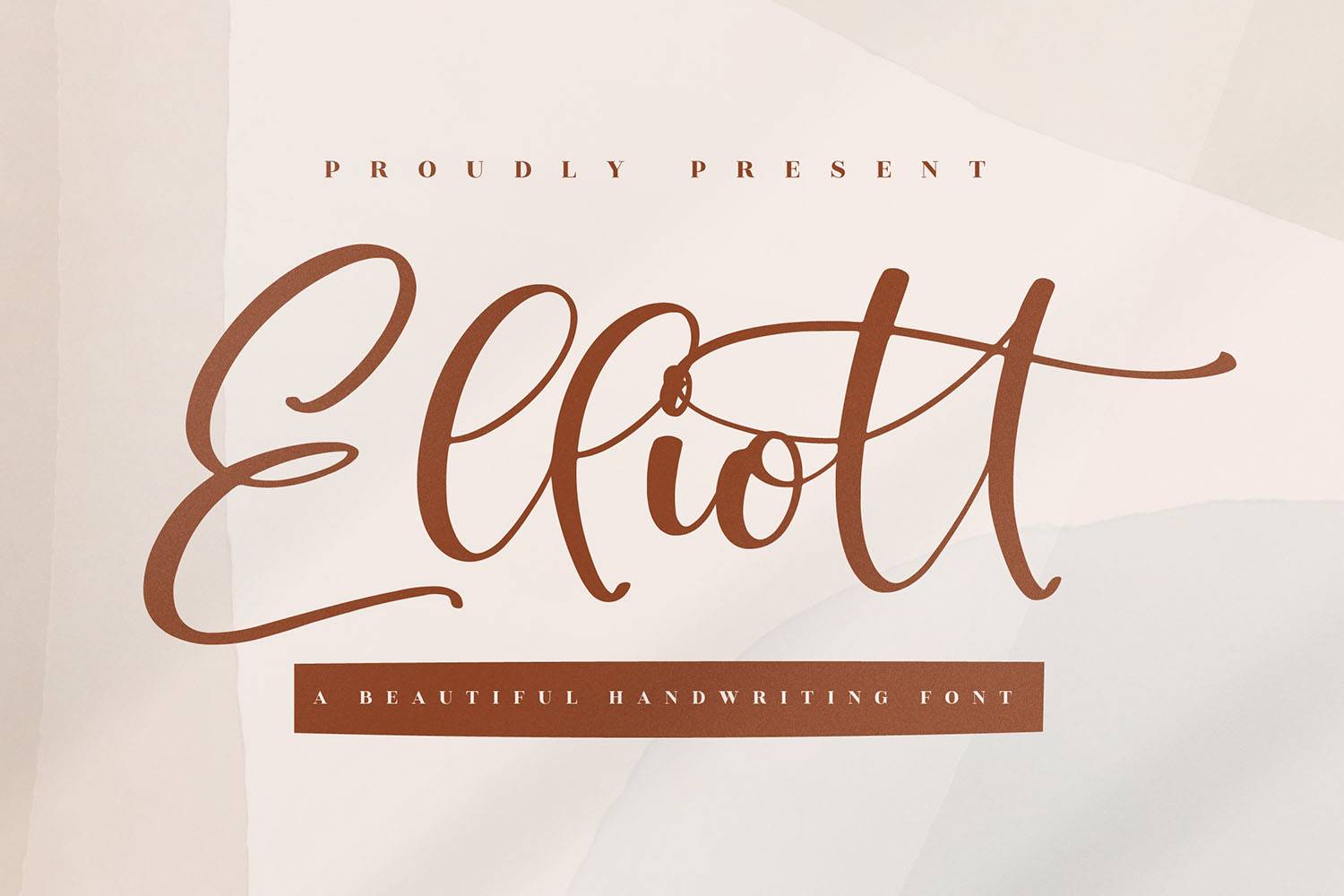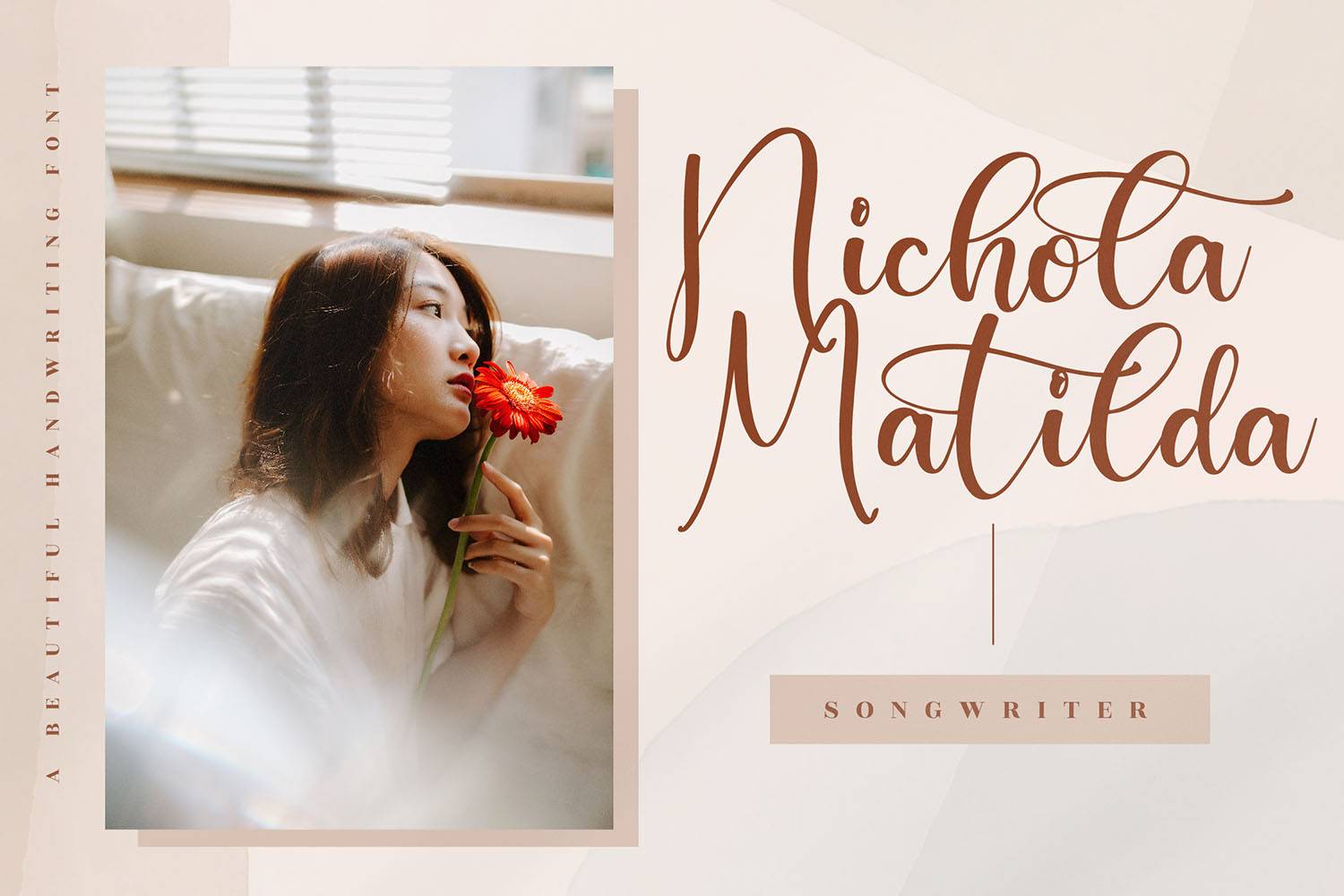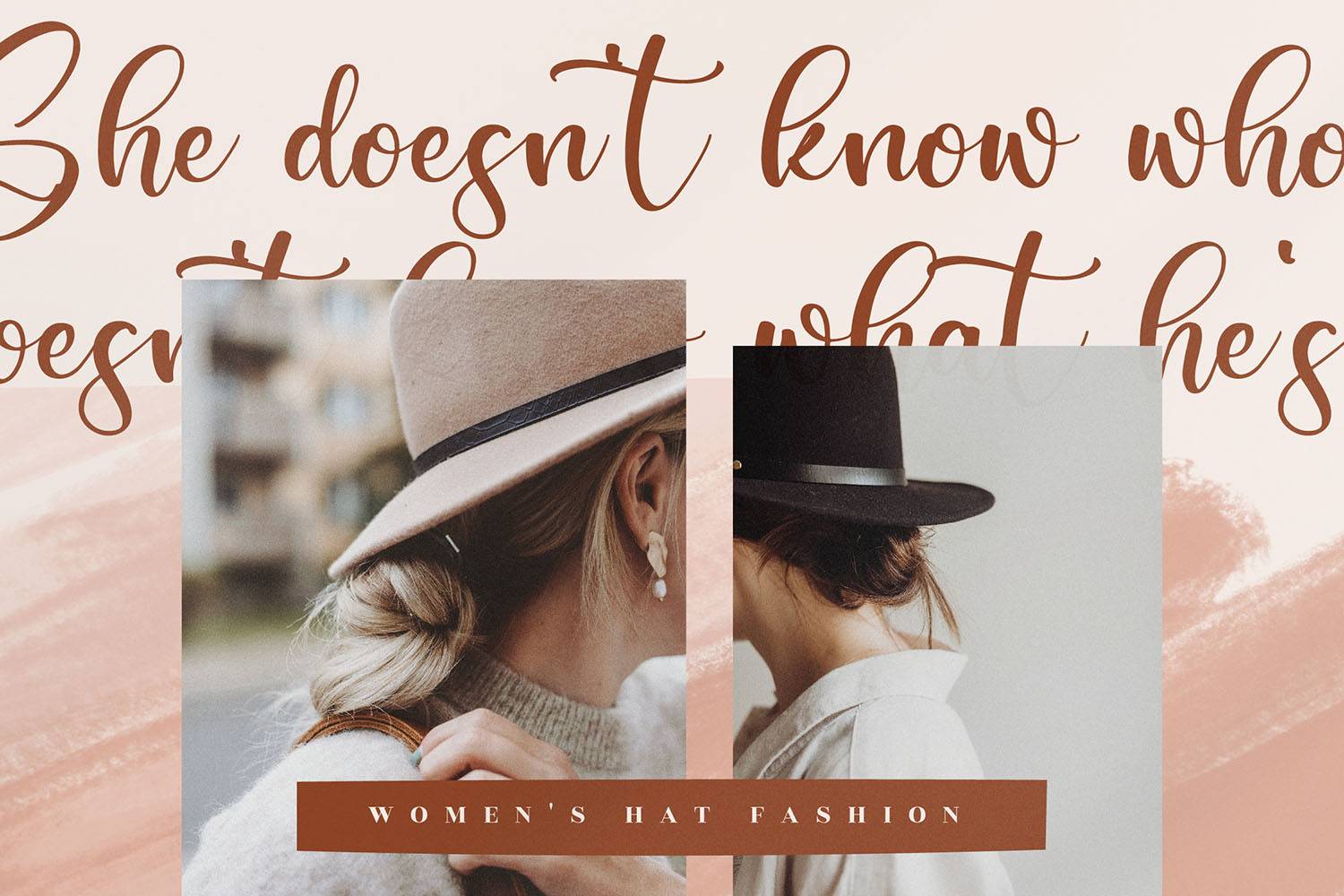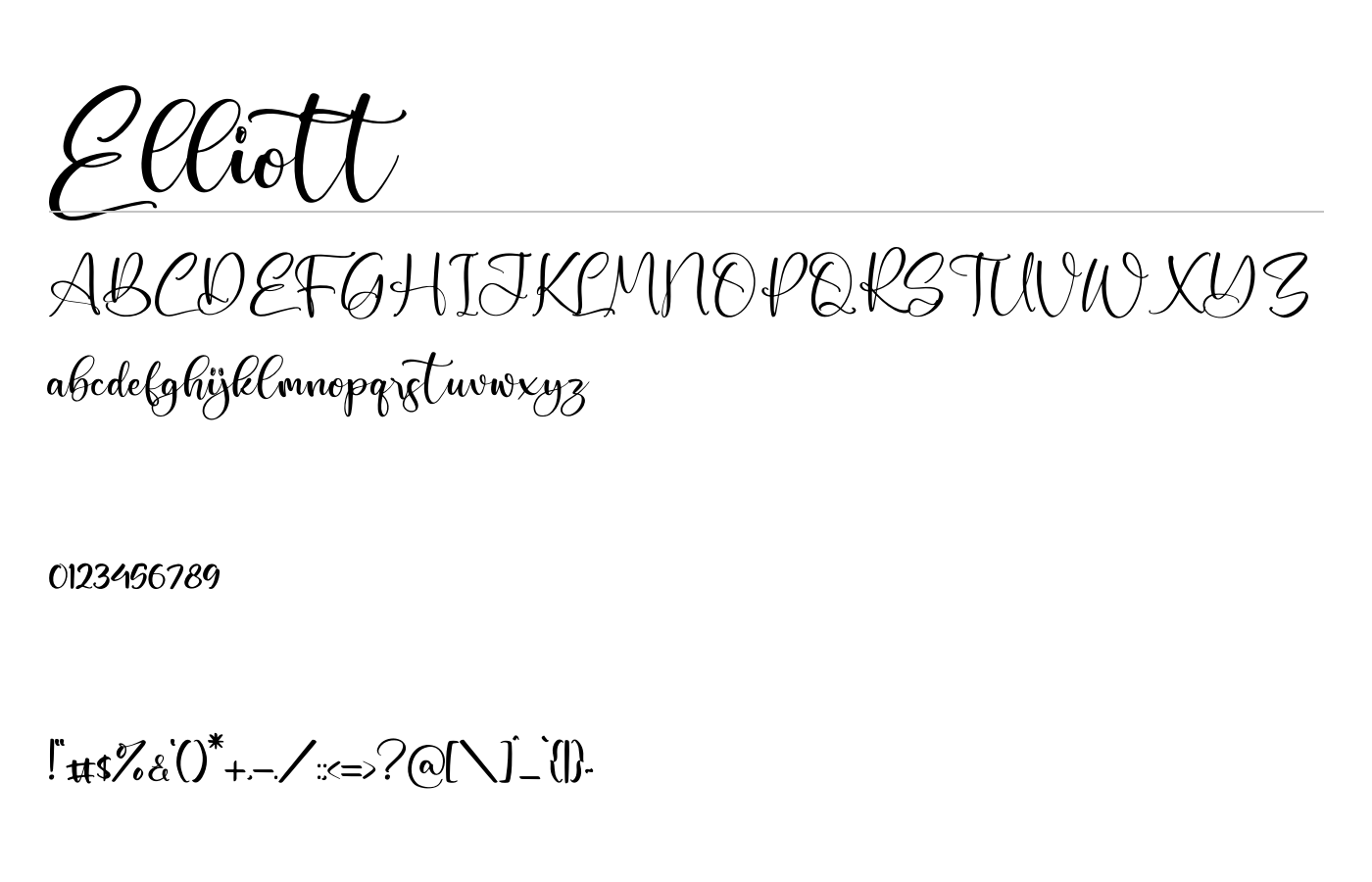
Elliott is a flowing, elegant script font with a hand-lettered style that combines both playful and sophisticated vibes. Its delicate, slightly varied stroke weight and graceful swashes make it perfect for branding, invitations, and decorative headlines where a personal and stylish touch is desired. This font shines best in contexts that call for a warm, artistic feel, such as fashion logos, wedding stationery, and creative editorial design.
Elliott Font
About Elliott Font